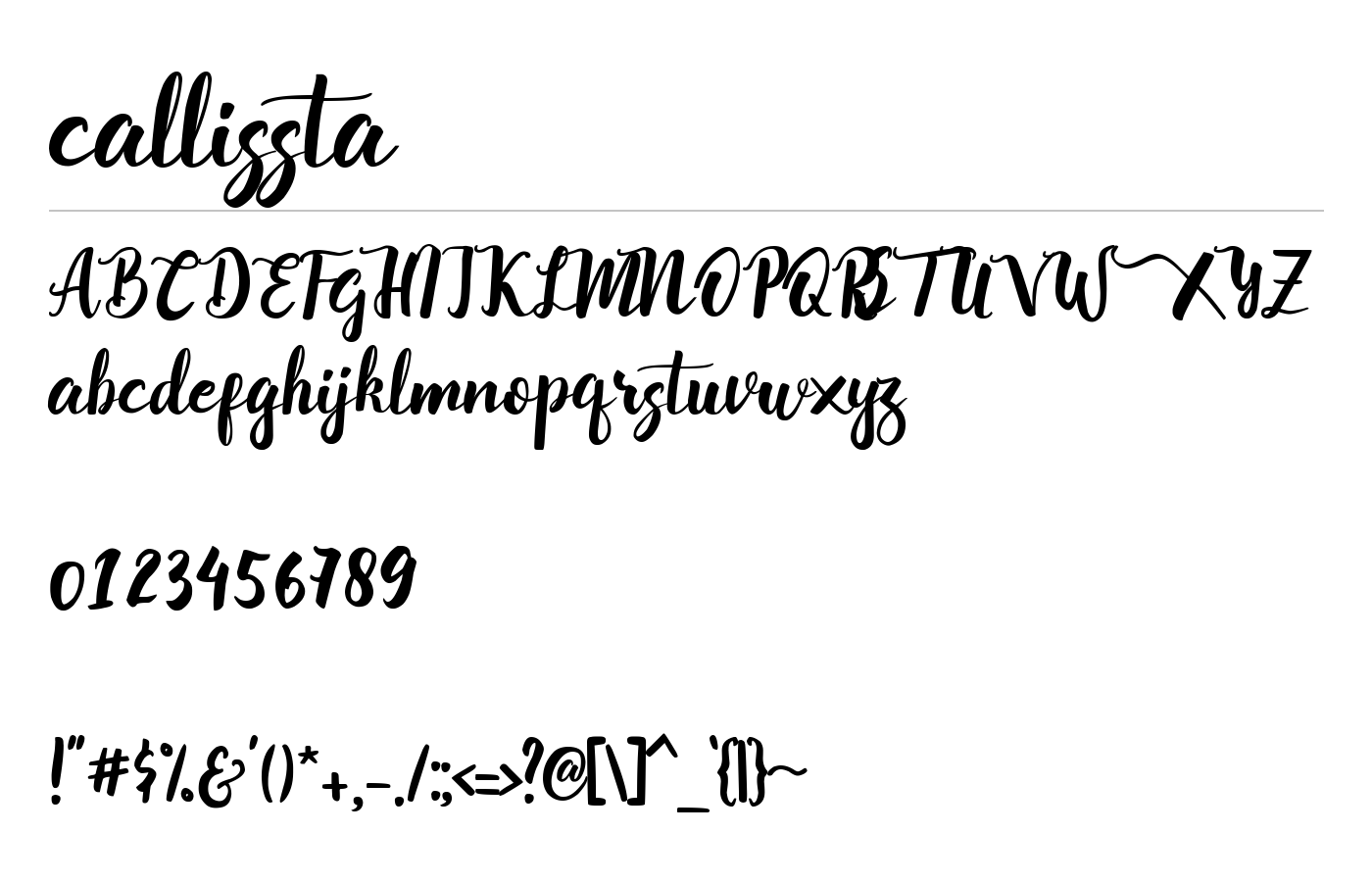
Callissta is a lively script font with a smooth, flowing style that combines playful brushstrokes and elegant curves. Its medium weight and slightly condensed letterforms give it a friendly yet refined personality, making it ideal for creative branding, invitations, and stylish headlines. This font’s natural, hand-lettered feel brings a personal touch to designs while remaining highly readable and versatile.
Callissta Font
About Callissta Font